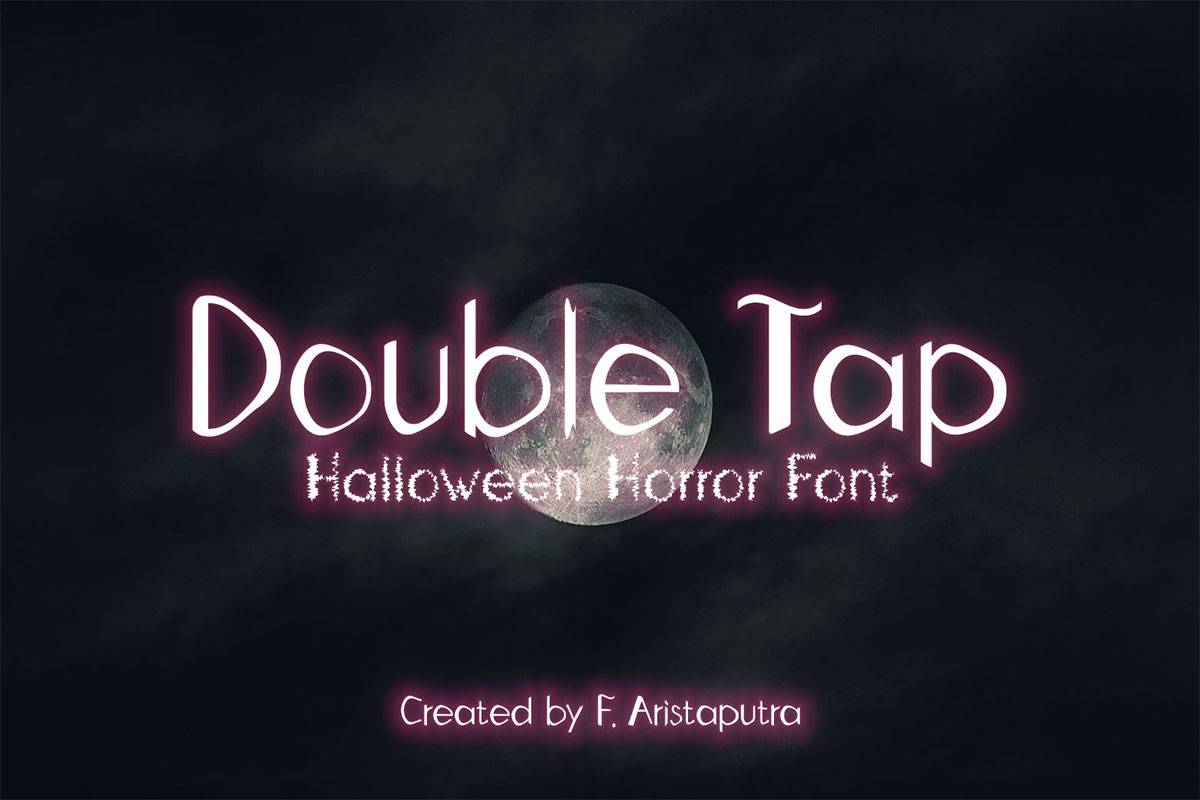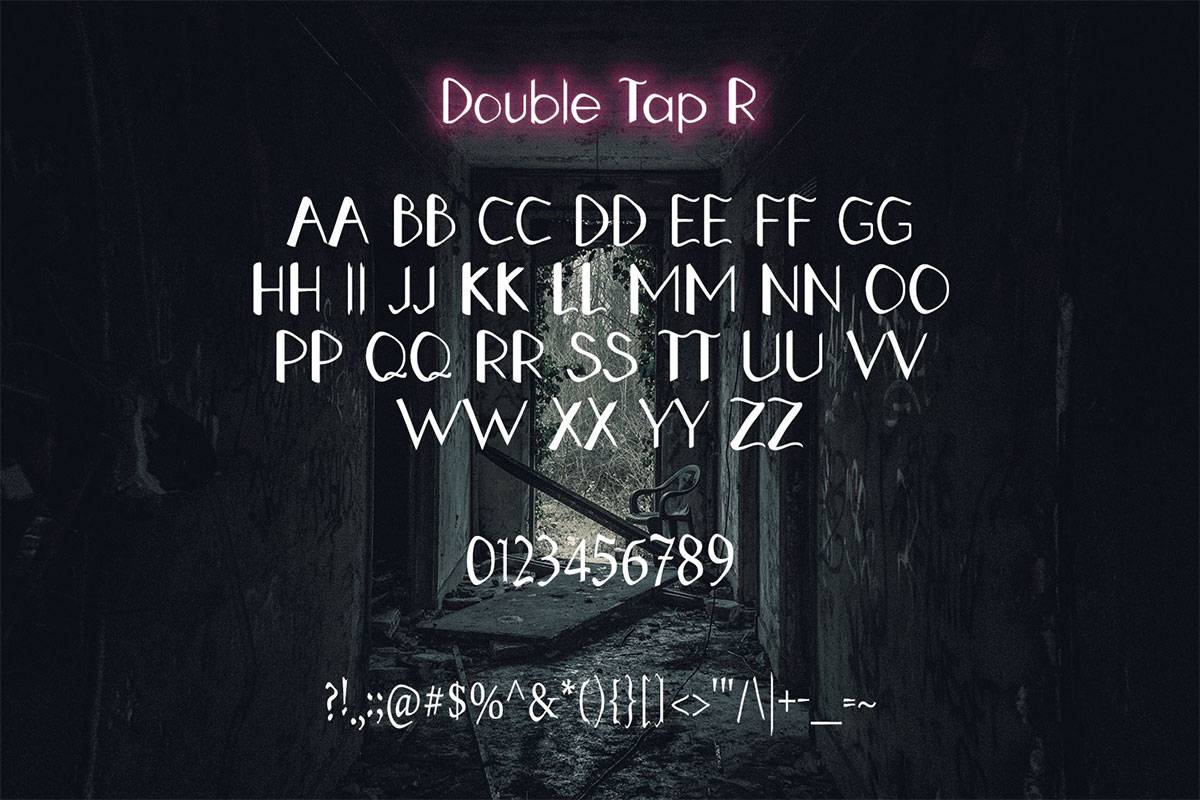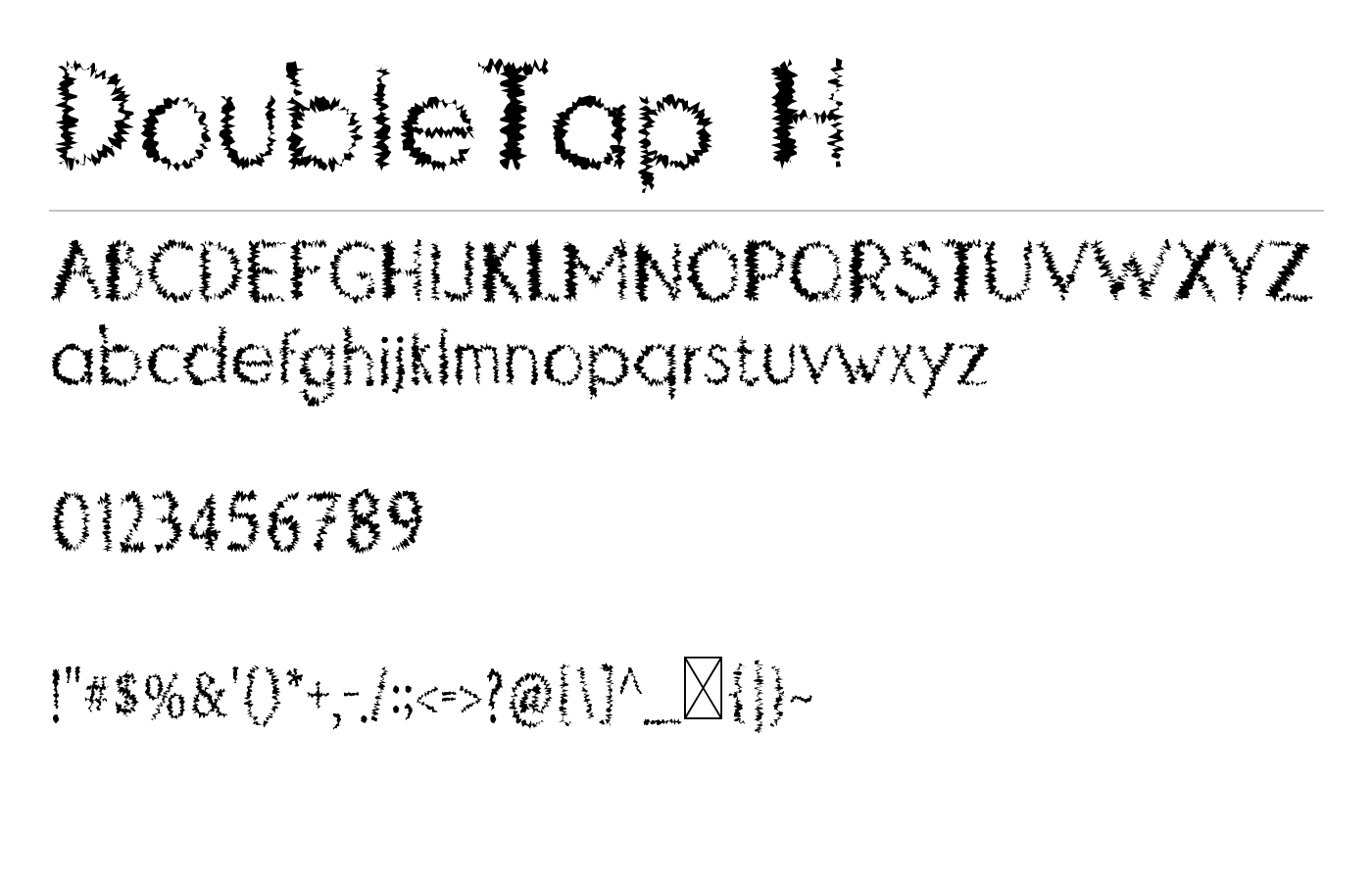
Double Tap is a highly distinctive, decorative sans serif font with jagged, irregular edges that give it an energetic, edgy personality. Its medium weight and tight spacing create a compact feel, while the spiky stroke style makes it perfect for grabbing attention in bold headlines or creative designs. This font works well for edgy branding, posters, or any project that wants to convey a dynamic, unconventional vibe.
Double Tap Font
About Double Tap Font